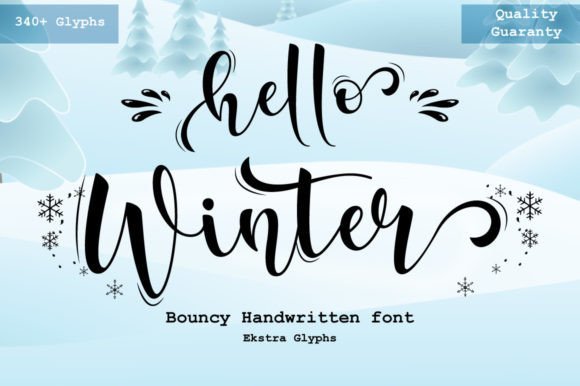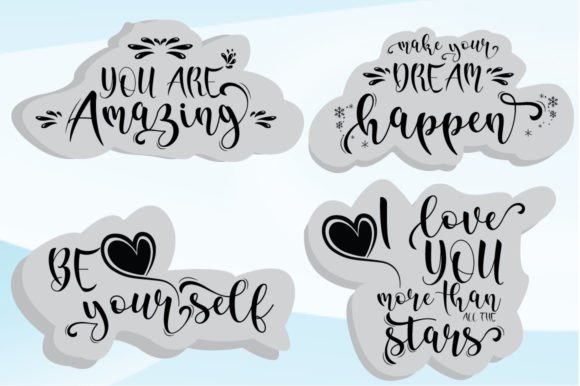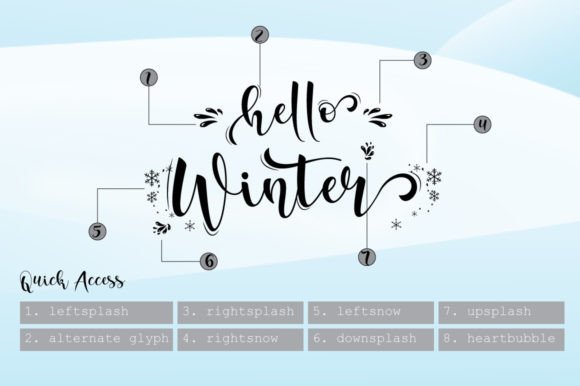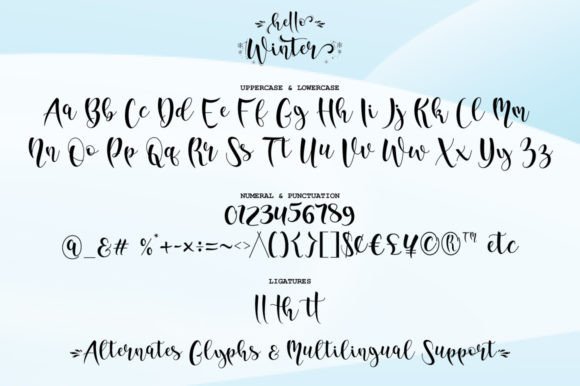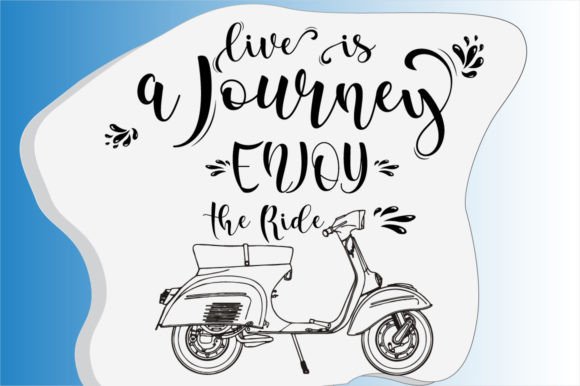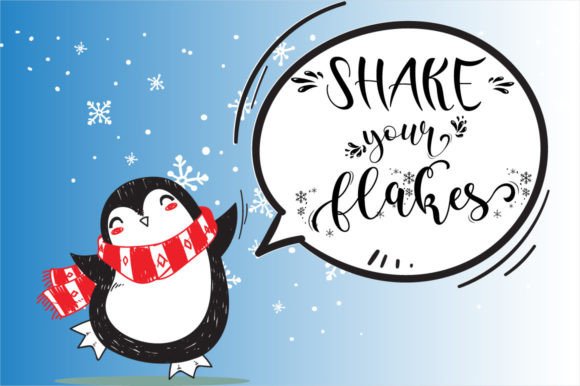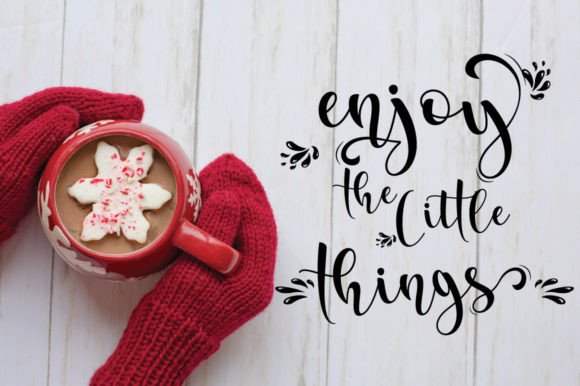
The Perfect Font for a Winter Wonderland
Have you ever stumbled upon a font that captures the magic of a snowy night, the coziness of a crackling fireplace, or the joy of building a snowman with your loved ones? For designers, finding the perfect font can be a game-changer, elevating a project from meh to mesmerizing. That’s where the Hello Winter Font comes in – a delightful, bouncy script font that’s sure to bring a smile to your face.
This charming font is designed to add a touch of whimsy and playfulness to any project, from crafty designs and quotes to social media posts and stickers. With its PUA encoding, accessing the extra glyphs and swashes is a breeze, making it a valuable tool for designers looking to add a personal touch to their work.
Hello Winter Font Key Features
- Font Family: Hello Winter is a unique and elegant font family, perfect for winter-themed designs.
- Unique Characteristics: Features intricate winter-inspired designs, including snowflakes, pinecones, and frosty patterns, adding a touch of elegance and sophistication to any design.
- Style Variations: Includes multiple style variations, such as bold, italic, and regular, to cater to different design needs.
Designer Review: Hello Winter Font
I recently had the chance to work with the Hello Winter Font and I’m excited to share my honest review.
- ✨ The font’s winter-themed aesthetic is beautifully captured, with intricate details and a cozy feel.
- ✨ The font’s versatility allows for a wide range of applications, from invitations to social media graphics.
- ✨ The font’s bold and playful style makes it perfect for adding a touch of whimsy to any design.
- ⚠️ The font may be too playful for some serious or professional designs, potentially detracting from the message.
- ⚠️ Some characters may not be as refined or detailed as others, which can be a bit jarring.
- ⚠️ The font’s winter theme may be limited to seasonal designs, reducing its usability throughout the year.
Overall, I think the Hello Winter Font is a great choice for anyone looking to add a touch of winter wonder to their designs. While it may not be suitable for every project, its unique aesthetic and versatility make it a valuable addition to any font collection.
Use the Hello Winter Font to add a festive touch to your winter-themed designs, such as holiday cards, gift tags, or social media posts.
Experiment with different font sizes and colors to create a unique and eye-catching look.
Combine the Hello Winter Font with other winter-themed elements, such as snowflakes, pinecones, or holly, to create a cohesive and festive design.